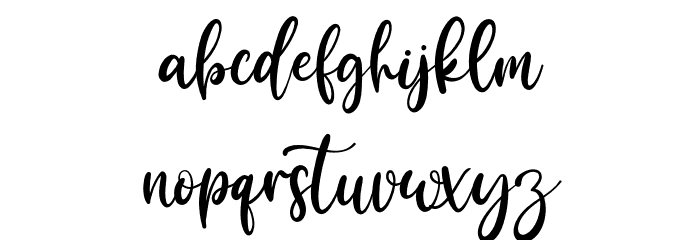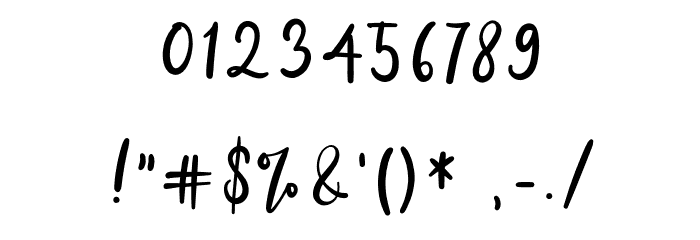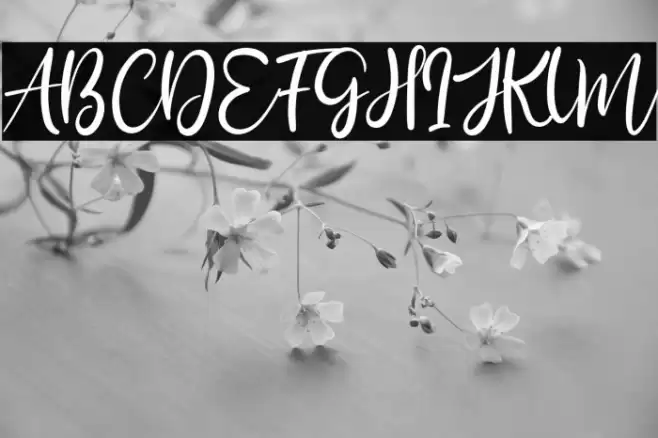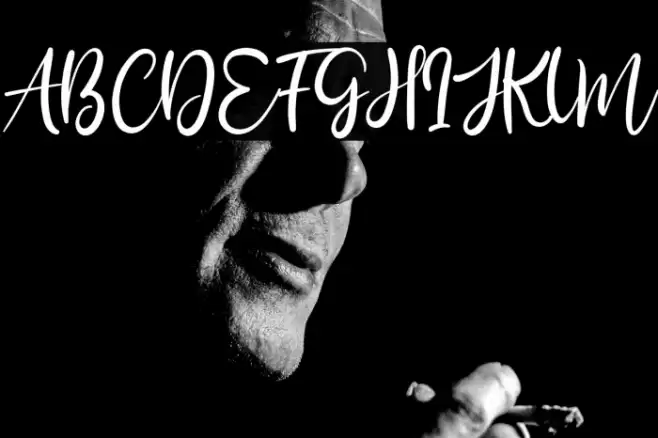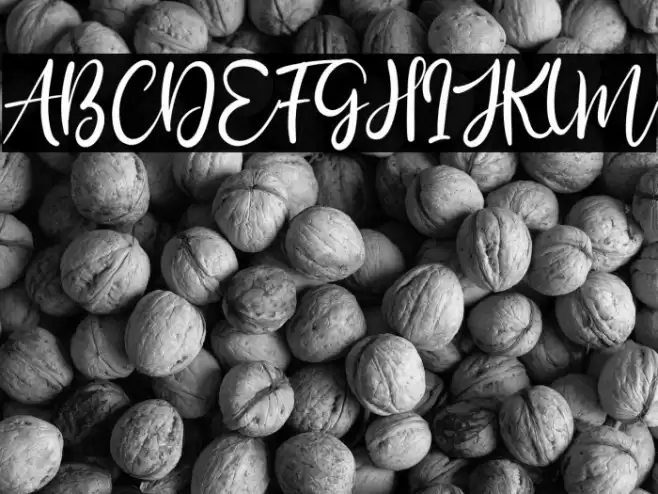
Bily Keith Font
This font features an elegant and flowing script style, characterized by its smooth, cursive letterforms. The uppercase letters are bold and expressive, with sweeping curves and flourishes that add a touch of sophistication. The lowercase letters maintain a consistent flow, enhancing readability while preserving the decorative nature of the script. Numbers and special characters are crafted with the same attention to detail, ensuring a cohesive look across all elements. The overall design exudes a sense of grace and fluidity, making it ideal for projects that require a personal and artistic touch.
An elegant, flowing script font with bold, cursive letterforms and decorative flourishes.
- Font: Bily Keith
- Category: Script